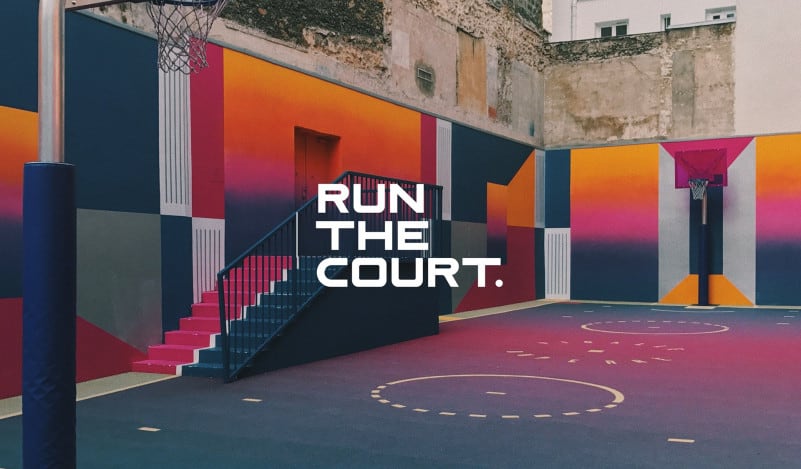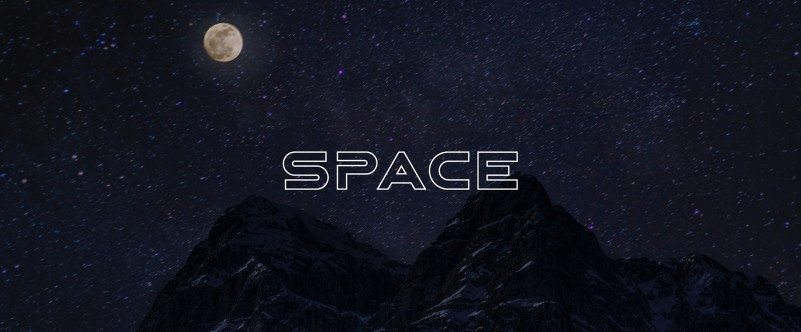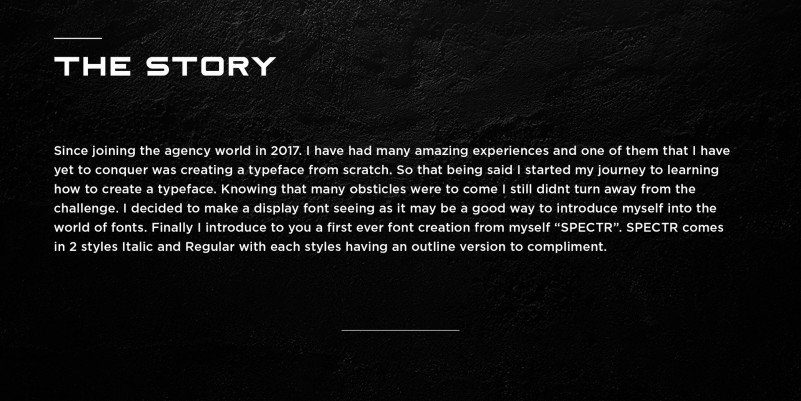
R-Spectr Sans Serif Font
For a style that’s creative and upscale at the same time, take a look at R-Spectr Sans Serif Font. Designed to evoke the dramatic elegance of high fashion, the Latinotype font foundry delivers good taste with a distinctive flair. The 4 fonts in this package include curvy true italics along with regular and outline Typeface.